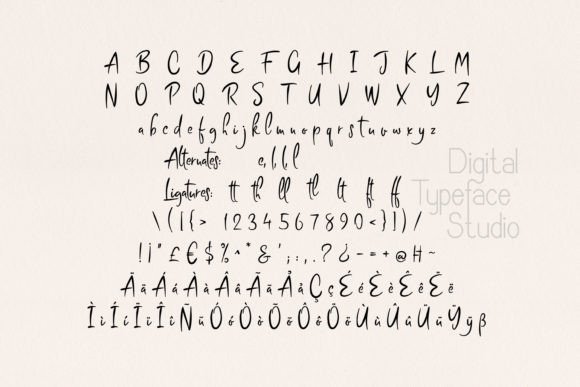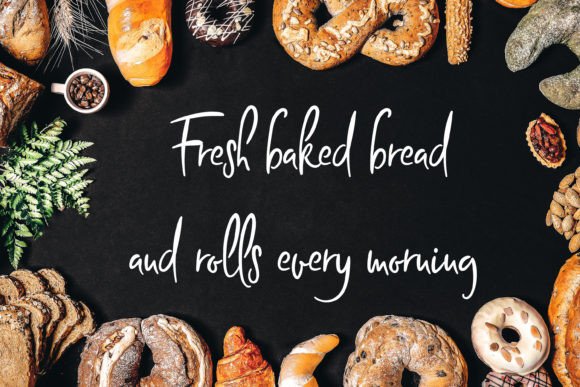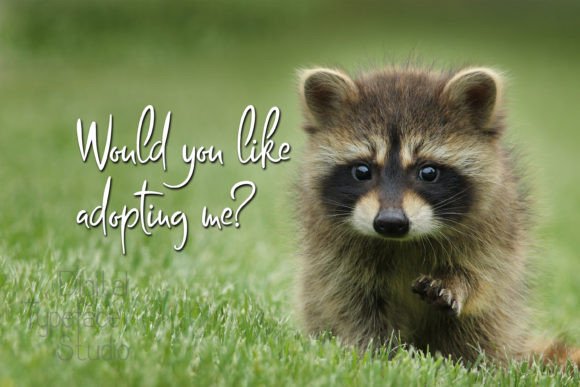
Introducing Bestya Stencil Font: Elevate Your Designs with a Unique Handwritten Style
Are you tired of using the same old fonts for your designs? Look no further! Bestya Stencil Font is here to revolutionize your creative projects with its distinctive handwritten stencil style. Crafted with precision and attention to detail, this font is perfect for designers, crafters, and DIY enthusiasts looking to add a personal touch to their work.
What Sets Bestya Stencil Apart
Bestya Stencil is a carefully crafted handwritten stencil font that boasts a unique feature: it is designed without closed loops on the characters. This thoughtful design element allows you to create truly one-of-a-kind and original-looking designs that stand out from the crowd. Whether you’re working on cutting projects, crafts, packaging, or any other creative endeavor, Bestya Stencil Font is the perfect choice.
Bestya Stencil Font is incredibly versatile and can be used for a wide range of projects, including:
- Cutting projects: Create custom vinyl cuts, iron-on designs, or paper crafts with a personal touch.
- Crafts: Add a unique flair to your handmade cards, gift tags, or scrapbooking projects.
- Packaging: Elevate your product packaging with custom labels, stickers, or branding elements.
- Signs and displays: Create eye-catching signs, banners, or window displays that grab attention.
Key Features of Bestya Stencil Font
Here are some key features that make Bestya Stencil Font a must-have for designers and crafters:
- Handwritten stencil style: Adds a personal, human touch to your designs.
- No closed loops: Allows for unique and creative design possibilities.
- Easy to read: Clear and legible, making it perfect for a wide range of applications.
- High-quality design: Crafted with precision and attention to detail for professional-looking results.
Tips and Inspiration for Using Bestya Stencil Font
To get the most out of Bestya Stencil Font, here are some tips and inspiration to get you started:
- Experiment with colors: Try pairing Bestya Stencil Font with bold, bright colors to create a statement piece.
- Mix and match: Combine Bestya Stencil Font with other fonts or design elements to create a unique look.
- Play with textures: Add a tactile element to your designs by incorporating textures or patterns.
For inspiration, imagine using Bestya Stencil Font to create:
- A custom wedding sign with a personal message.
- A set of handmade gift tags with a unique, monogrammed design.
- A bold, eye-catching packaging label that stands out on store shelves.